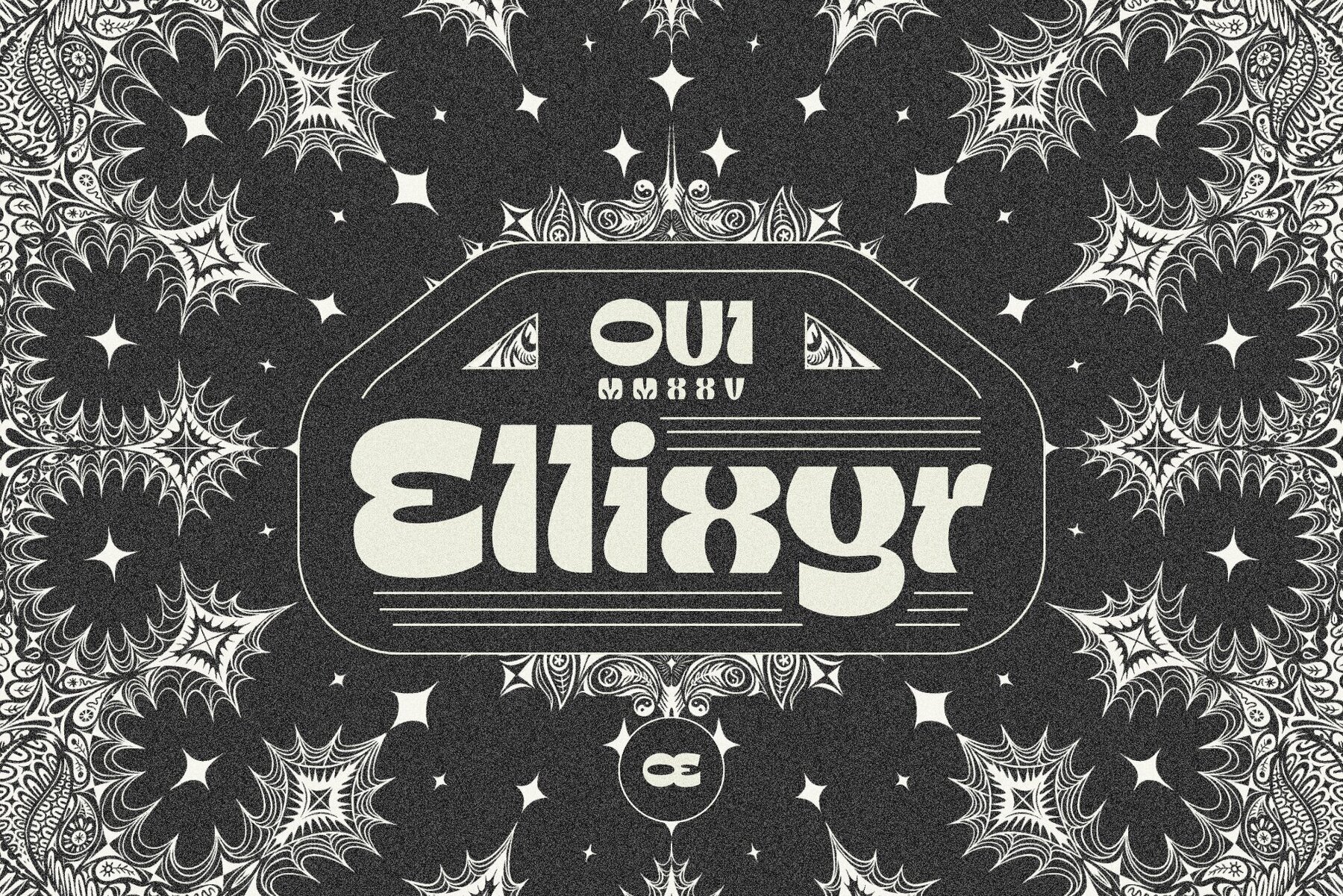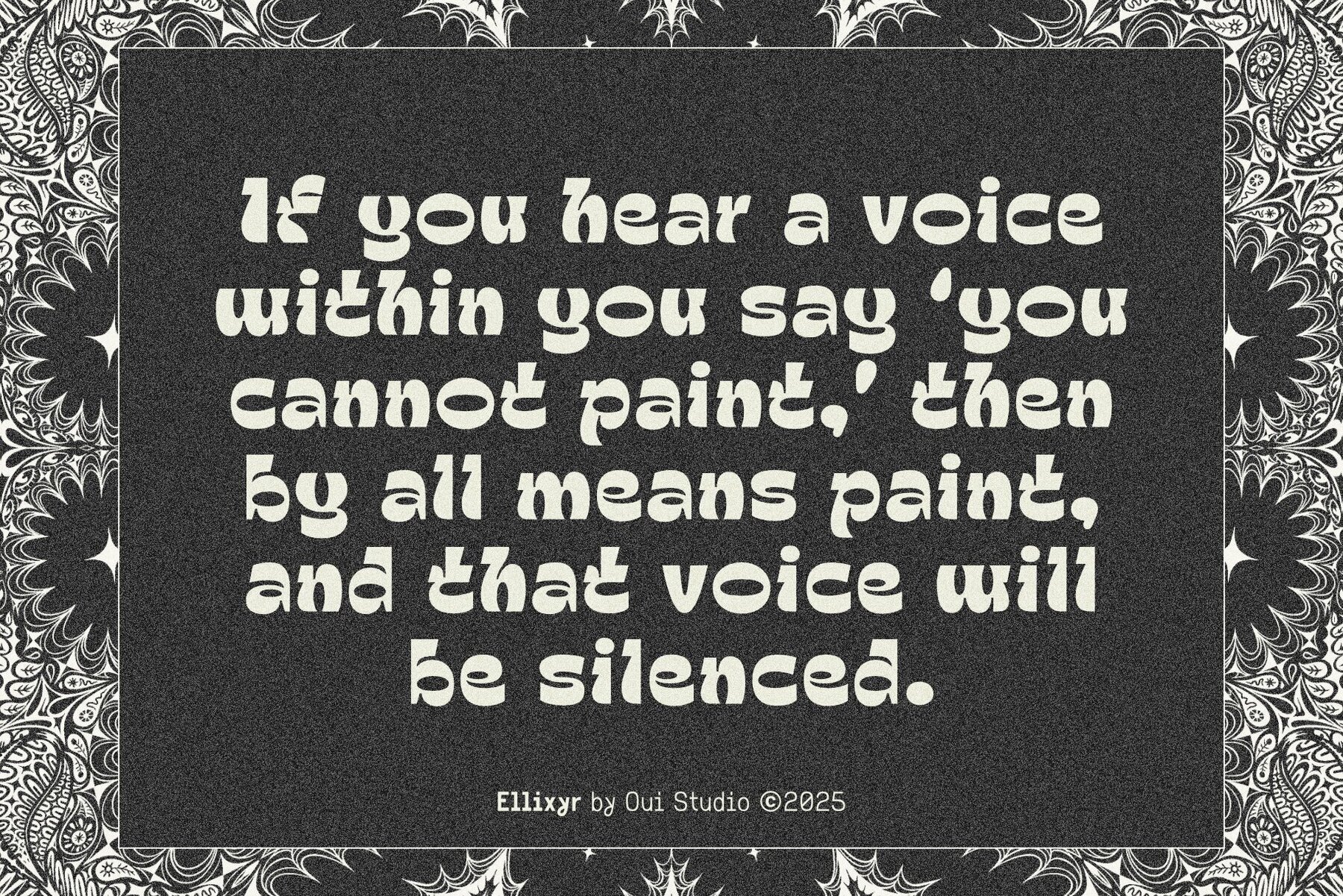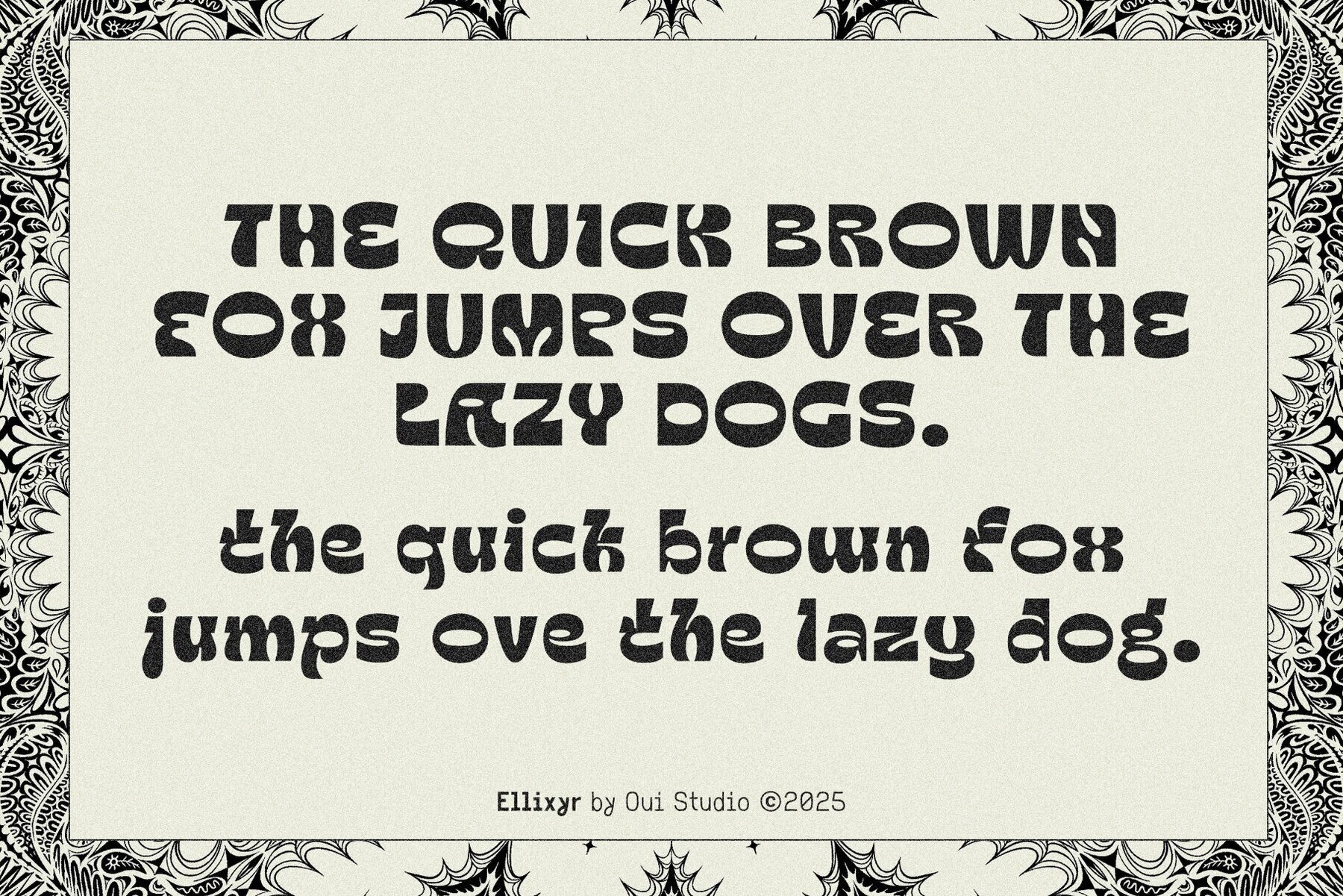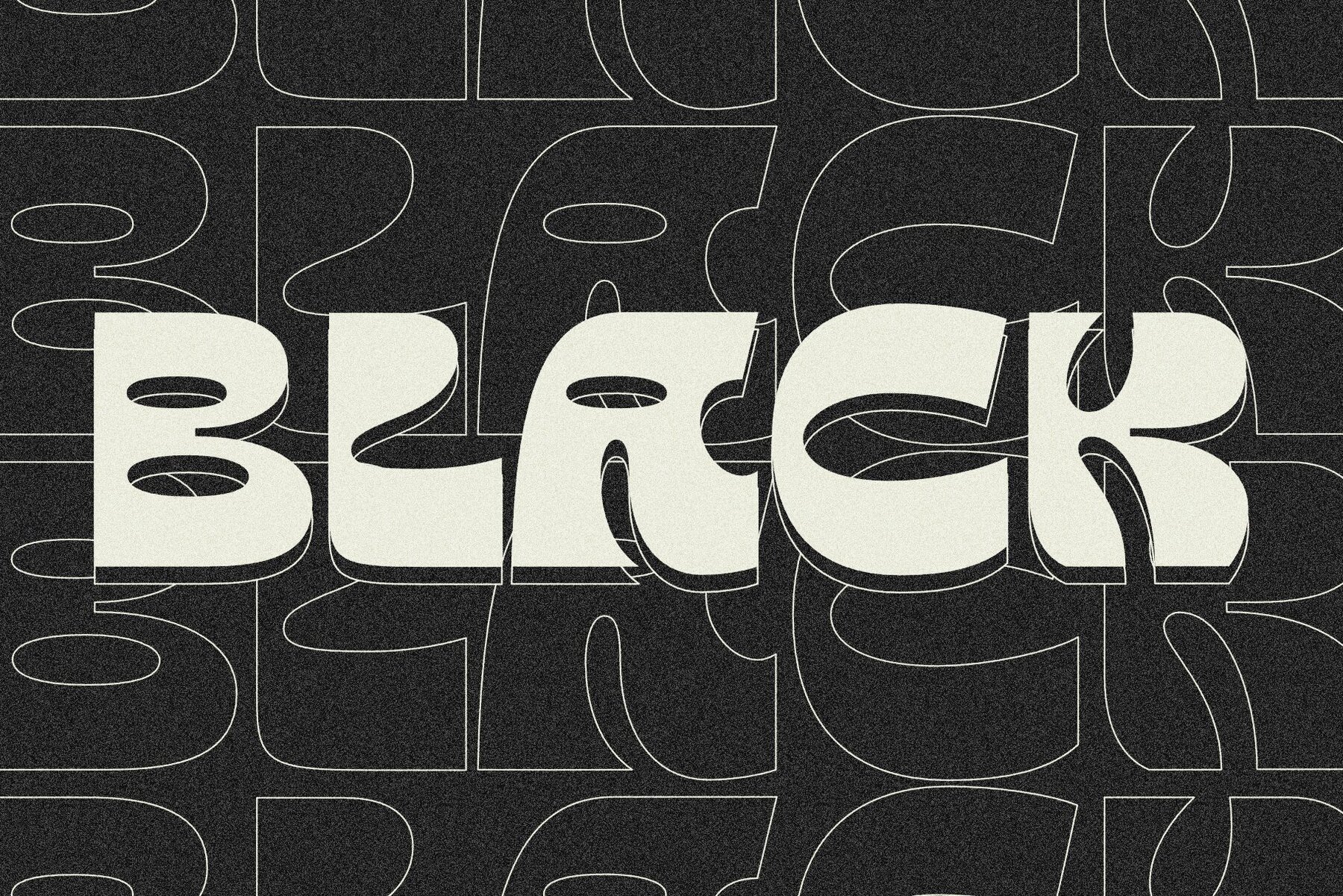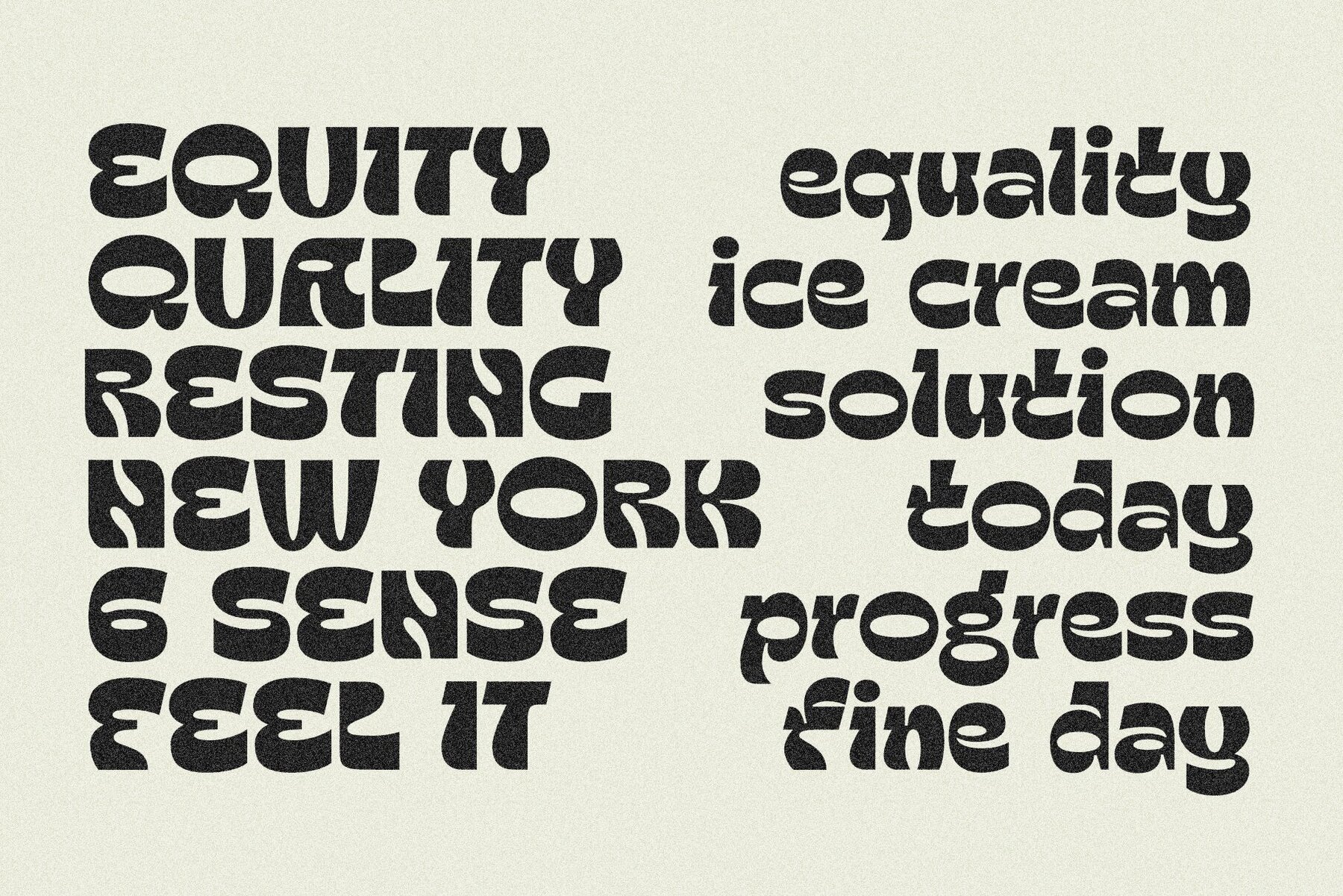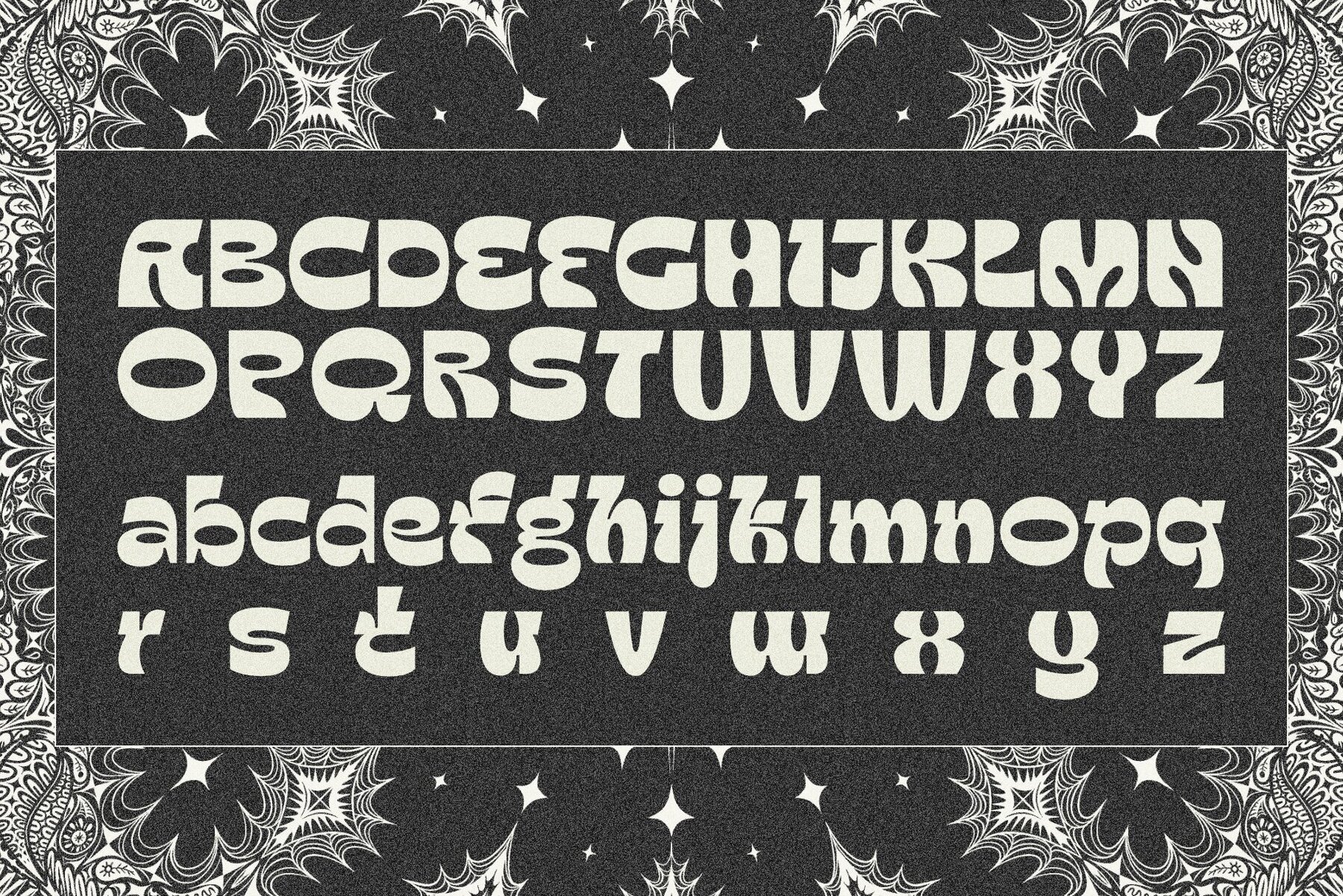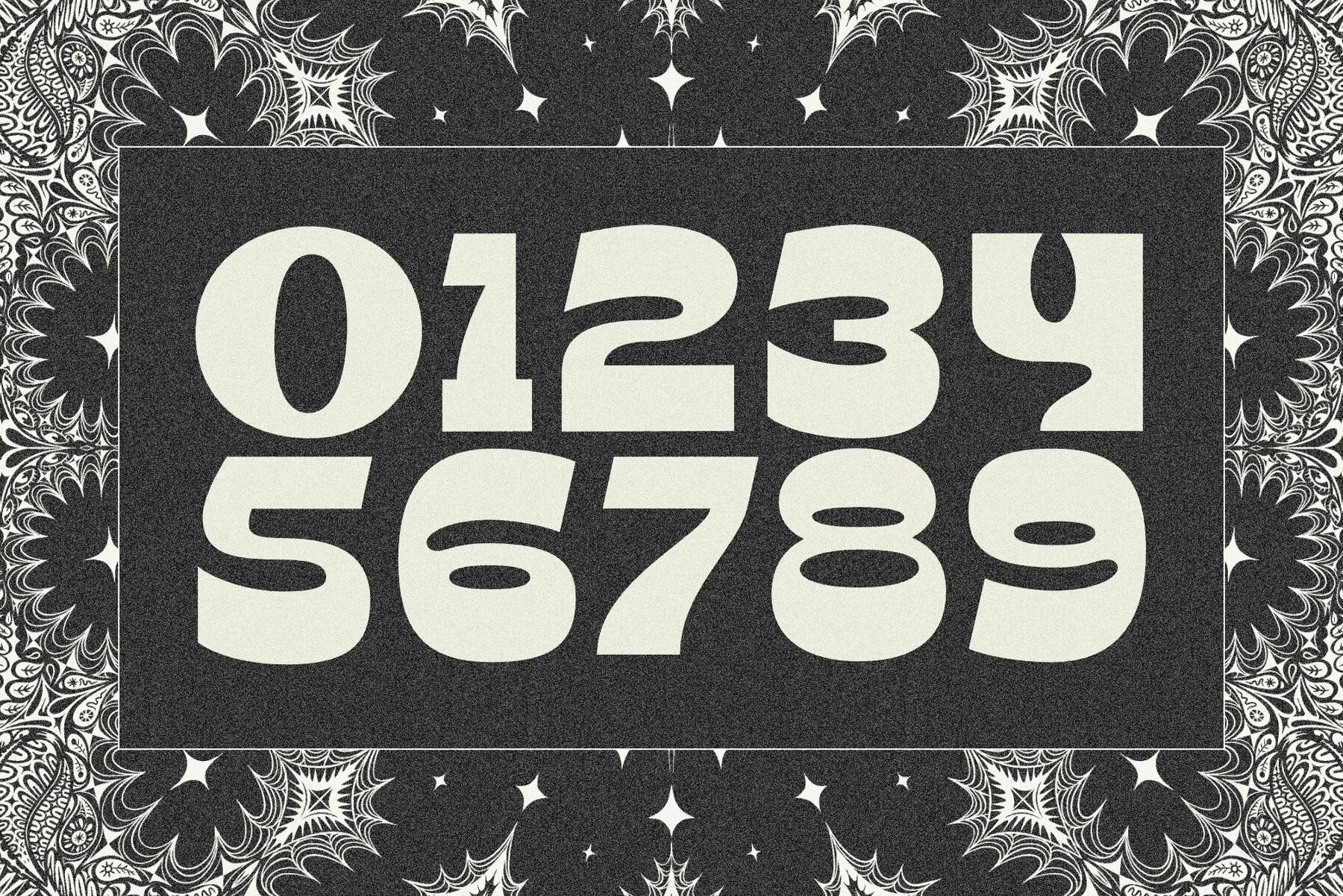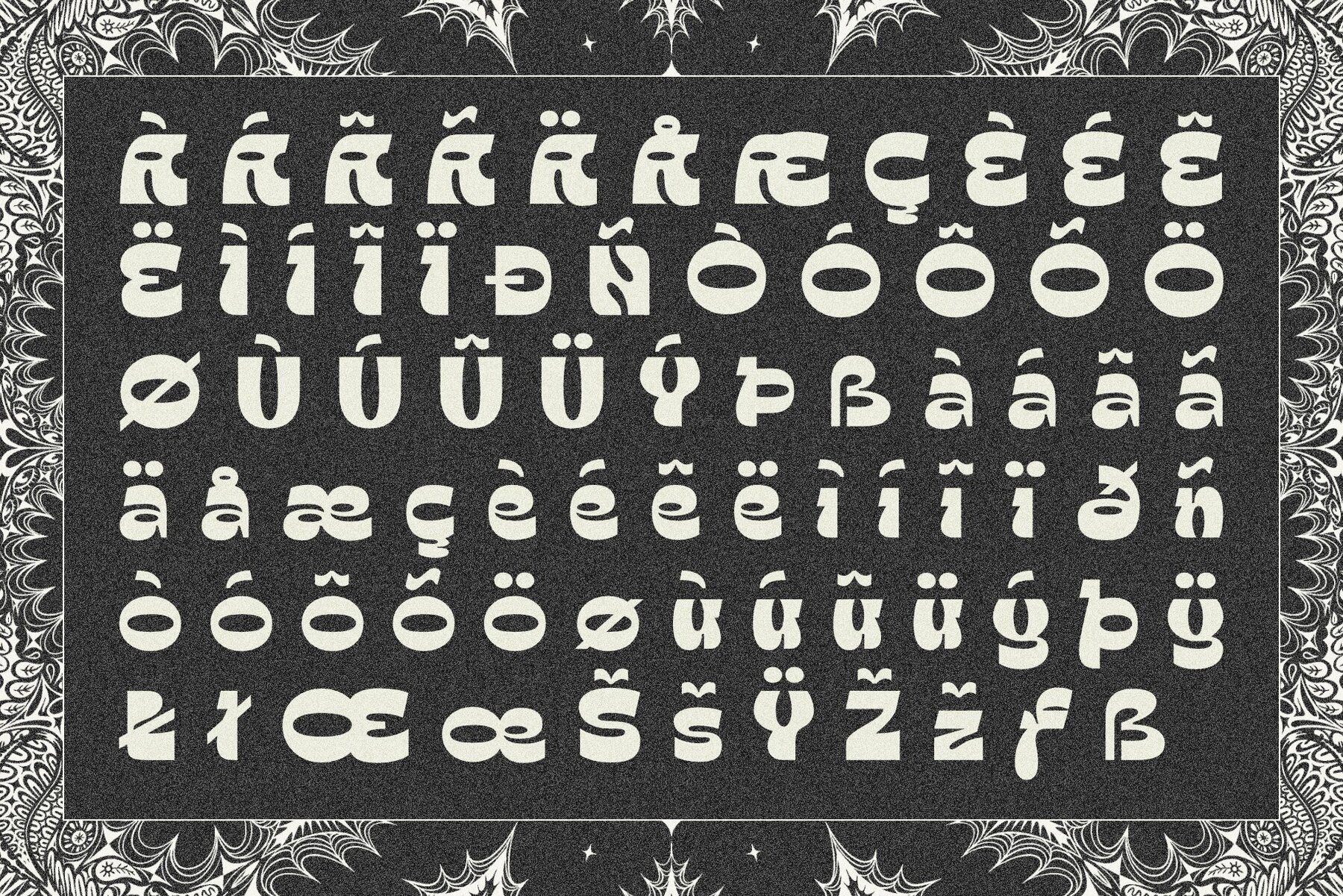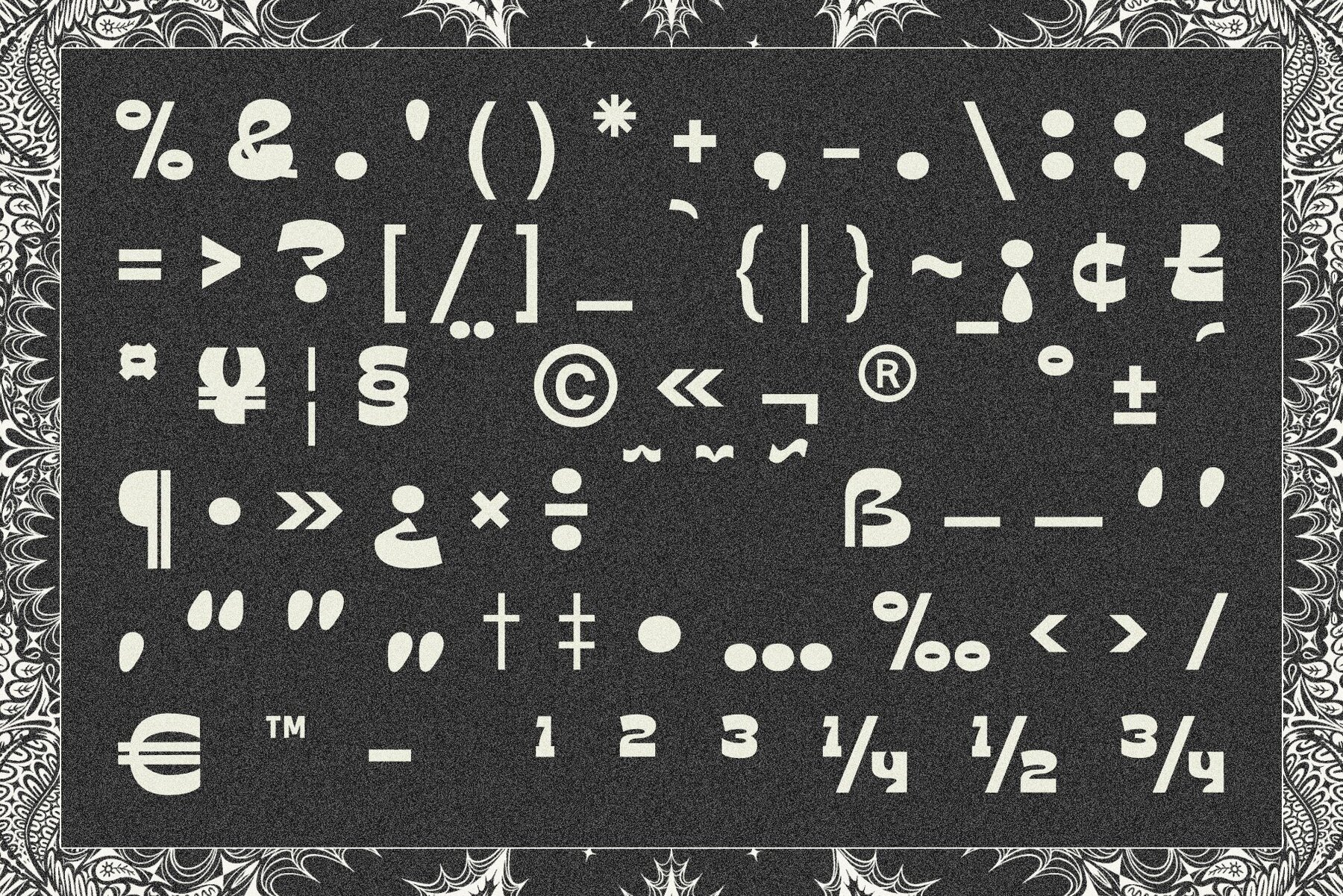
Oui Ellixyr Font
expand_font Oui Ellixyr Font Unleash your creativity with Oui Ellixyr, a psychedelic display font blending vintage nostalgia with modern flair. Ideal for designers seeking a... SKU T31137 Bold,Groovy,Display,Curvy,Thick,Vintage,Psichedelic,Retro,Logo,Unique,Decorative,Geometric,1960s,Abstract,Bubble,Chunky,Experimental,Eye Catching,Funky,Heavy,High Contrast,Logotype,Organic,Playful,Poster,Psychedelic,Rounded,Whimsical Explore Exceptional Fonts for Digital and Traditional Media Fontpath offers a large variety of fonts for every designer, all at affordable prices and in multiple formats. Browse our best in class fonts today for all your creative needs, you can find everything you need right here at our site! Fonts,sans,sans serif,retro,script,decorative,title,FontPath 20140312040223 Fontpath offers 200,000+ of the most professional fonts found online, start downloading today! Real-Time Font Discovery at Fontpath